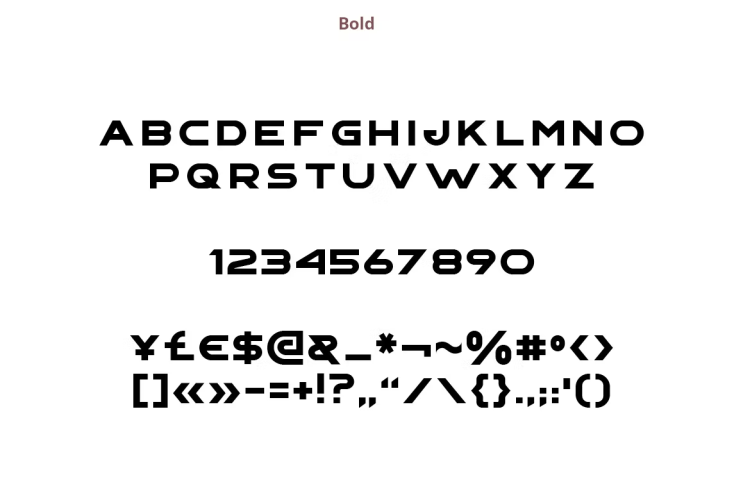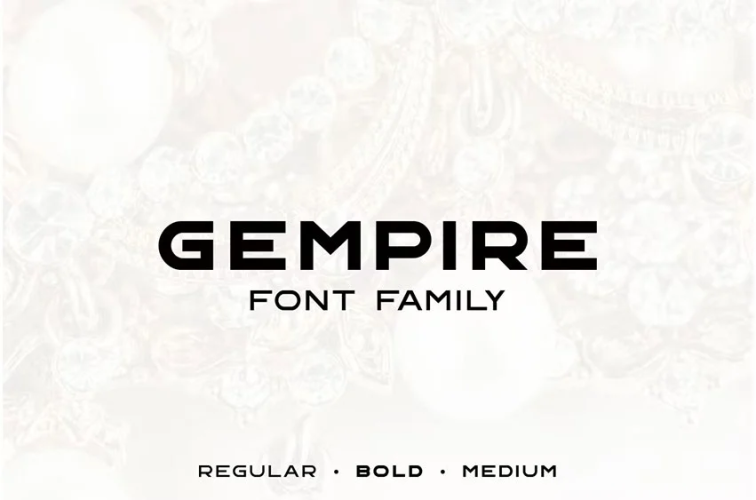
Gempire Font
Gempire Font is a font family made to create stylish luxury fashion style headers, titles, and text.
It consists of three types:
Where Gempire Font works best
Gempire Font keeps its shape at 14 and 16 pixels, which is where interface text actually lives. Numbers and capitals stay distinguishable in tables.
Presentations are read at a distance; a clean sans with a strong bold is the safest hierarchy you can build in a hurry.
Simple letterforms survive angles, glare and movement, so Gempire Font suits door signs, menus boards and exhibition panels.
What kind of work does Gempire Font suit?
It sits in the Sans Serif Fonts group and reads as bold, luxury, professional, sans serif. That makes it a candidate wherever those qualities help: headings, packaging, social graphics and brand work. Set it at the size you plan to use before deciding.